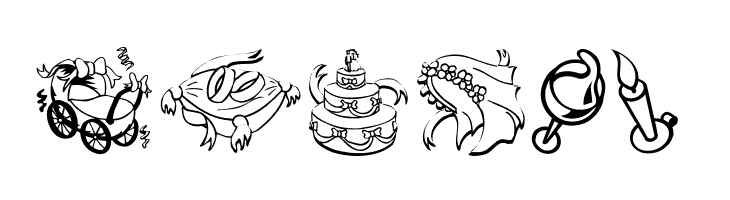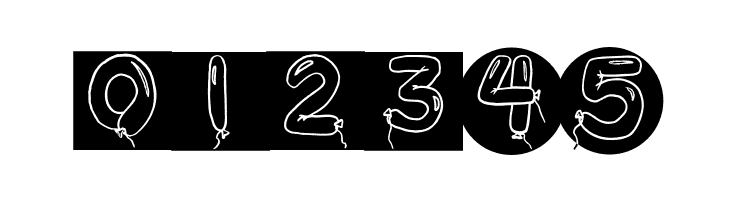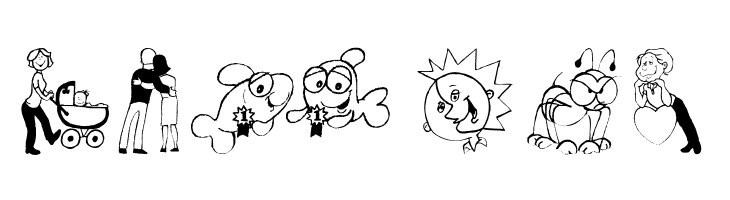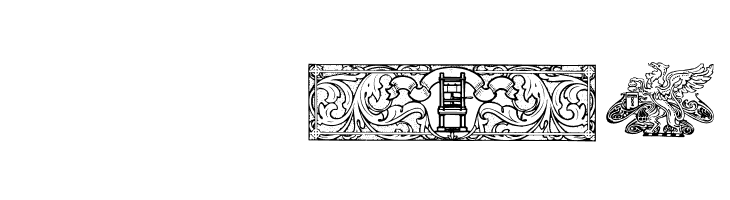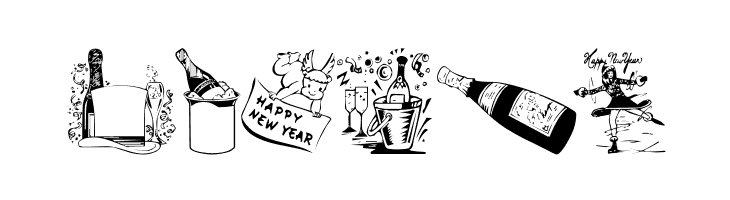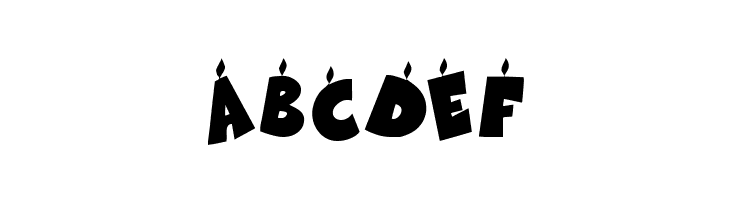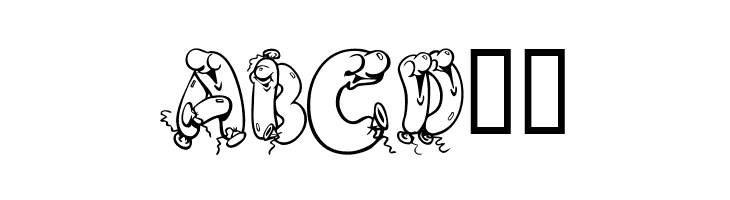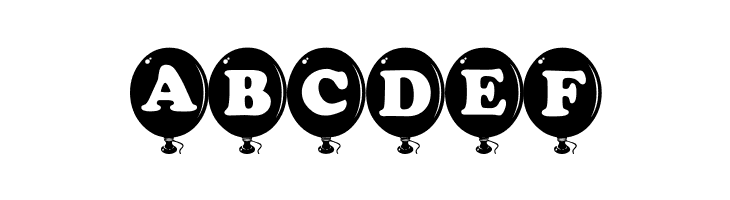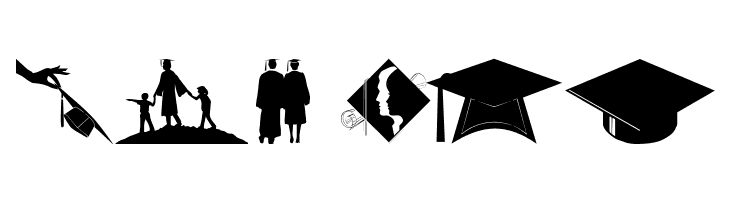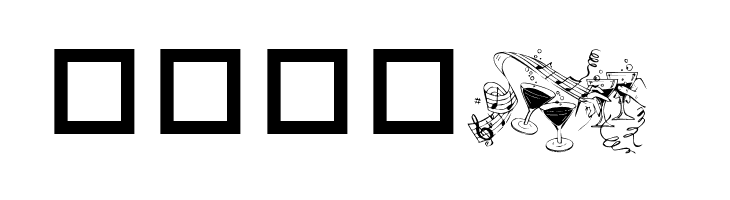
A collection of festive and whimsical icons themed around celebrations.
A playful font with numbers styled as inflated balloons, perfect for festive designs.
A decorative set of American-themed illustrations instead of a traditional font.
Cartoon dingbat font with celebration and party-themed illustrations.
A collection of bold, 1980s-themed icons and graphics.
A bold, festive font with candle-like accents, perfect for celebrations.
A decorative typeface inspired by traditional papel picado with intricate cut-out patterns.
Decorative black triangular pennant banner pattern.
A festive decorative font with diverse fireworks and burst illustrations.
A bold serif font with a classic, festive banner style.
A festive icon set font with birthday and celebration motifs.
A bold, festive font with candle-topped letters, perfect for celebrations.
A decorative dingbat font with playful, festive icons for celebrations.
A decorative font with holiday-themed icons for various celebrations.
A decorative font with characters emerging from champagne bottles, perfect for festive designs.
Holiday and celebration-themed dingbat icon font.
A decorative font with holiday-themed illustrations in circular frames.
A playful, balloon-themed font ideal for festive and joyful designs.
A decorative font with characters inside a US map silhouette featuring the American flag.
A bold, decorative font styled like birthday candles, perfect for festive themes.
A bold, decorative font with stars and stripes pattern, ideal for patriotic themes.
A decorative font with festive, mask-like embellishments on each letter.
A festive dingbat font with party-themed icons and celebratory text.